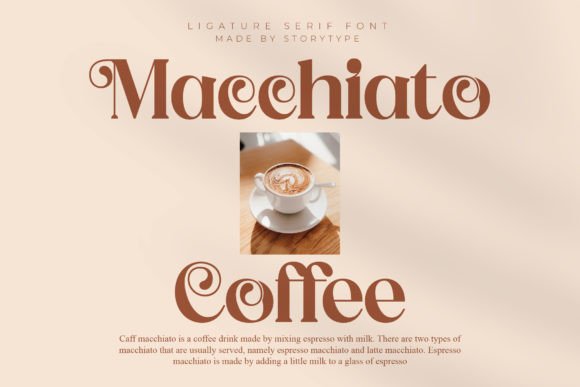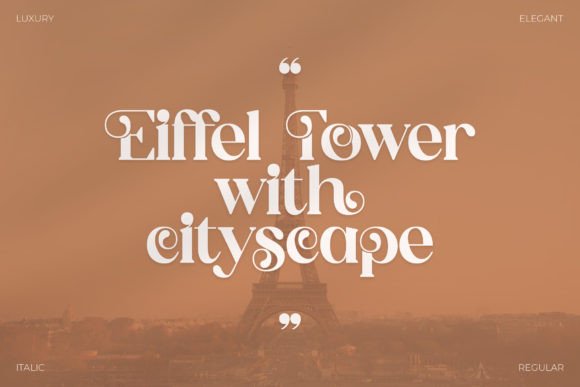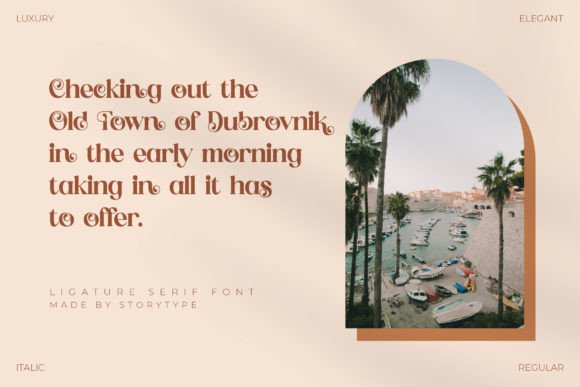
Introduction to Histora Beralin Font
As a designer, there’s nothing quite like the thrill of bringing a creative project to life. The moment when all the elements come together, and you see your vision take shape. For many of us, this moment is made possible by the right design resources – and that’s where the Histora Beralin Font comes in.
| 👤 Author | Storytype Studio |
This stunning font has been a game-changer for designers looking to add a touch of elegance and sophistication to their work. With its unique blend of classic and modern styles, it’s the perfect choice for high-quality designs that demand attention.
Whether you’re working on a luxury logo, a book title, or a fashion brand, the Histora Beralin Font is an invaluable asset. Its versatility and high-quality design make it an essential resource for any creative project, and with a transparent background option available for free download, it’s easier than ever to incorporate into your next design.
Key Features of Histora Beralin Font
- High-quality design resource for creative projects, suitable for various applications such as logos, headings, and body text.
- Unique characteristics include a vintage-inspired aesthetic and intricate details, making it a standout design resource.
Honest Review: Histora Beralin Font
I recently had the chance to work with the Histora Beralin Font, and I must say, it’s been a game-changer for my creative projects. As a designer, I’m always on the lookout for high-quality fonts that can elevate my designs, and Histora Beralin Font definitely delivers.
One of the things I love about this font is its unique and elegant design. The transparent background and clean lines make it perfect for creating a professional and sophisticated look in any design project. Plus, it’s completely free to download, which is a huge bonus!
Here are some things that work well with the Histora Beralin Font:
- ✨ Unique and elegant design
- ✨ Perfect for creating a professional and sophisticated look
- ✨ Highly versatile and suitable for various design projects
However, I do have to mention a few limitations:
- ⚠️ Limited character set, which may not be ideal for long-form texts
- ⚠️ May not be suitable for certain design styles or themes
Overall, I’m really impressed with the Histora Beralin Font. It’s a valuable addition to any designer’s toolkit, and I would highly recommend it for any creative project that requires a touch of elegance and sophistication.
The Histora Beralin Font is perfect for a variety of creative projects, including:
- Brochures and flyers
- Business cards and stationery
- Social media graphics and ads